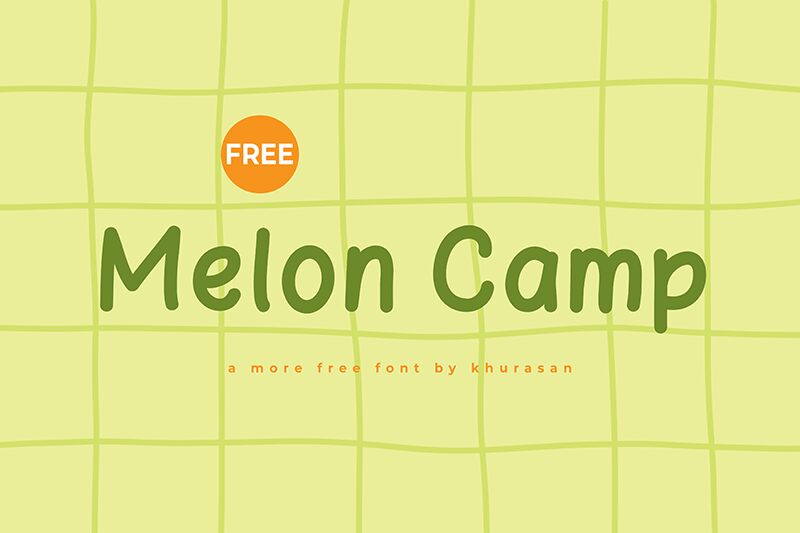
Melon Camp
Melon Camp font by Khurasan is a casual and friendly display font that embodies a relaxed, inviting style. Its comic influence and approachable design make it ideal for lighthearted and engaging applications. This playful font adds a touch of fun to any project, capturing attention with its unique character.
Possible use cases include comic strips, children’s books, greeting cards, posters, event invitations, banners, logos, packaging designs, social media graphics, and website headings. Enjoy the creativity it brings to your designs with this free display font.